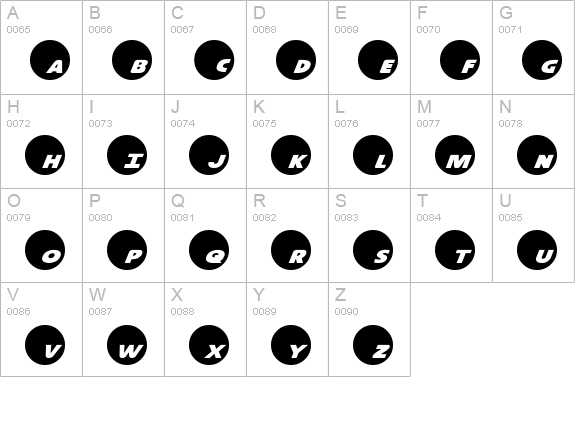
Dot.com Reverse Pro Font Details
Dot.com Reverse Pro font is a modern and sleek typeface that exudes a sense of professionalism and sophistication. Its unique design features a striking reverse contrast, where the thin strokes are accentuated against the thick ones, creating a visually dynamic look. This font is perfect for creating eye-catching headlines, logos, and branding materials that demand attention. What makes Dot.com Reverse Pro font even more appealing is that it is available for free download at FontsMarket.com. This means you can easily access this premium font without any cost, making it an excellent choice for designers, businesses, and individuals looking to elevate their projects with a touch of elegance and style. Don't miss out on the opportunity to enhance your designs with the distinctive charm of Dot.com Reverse Pro font.